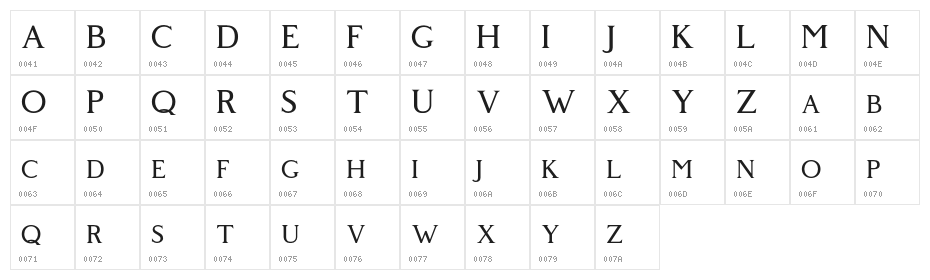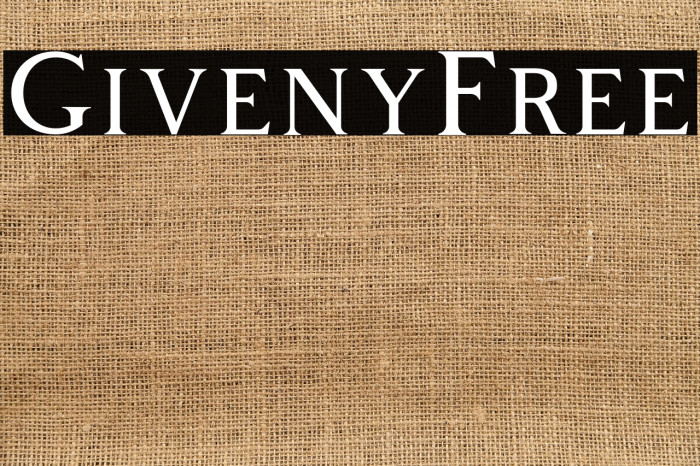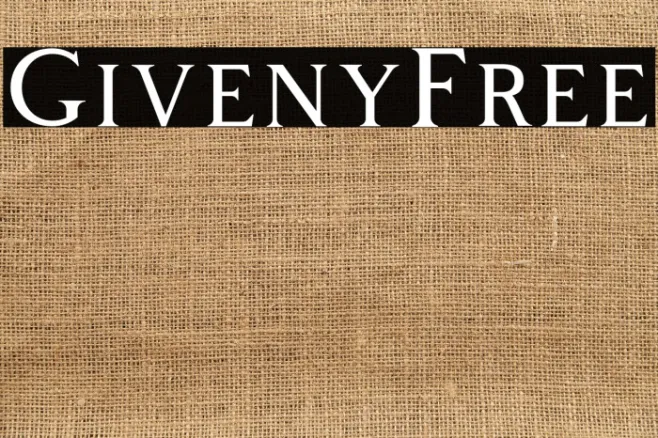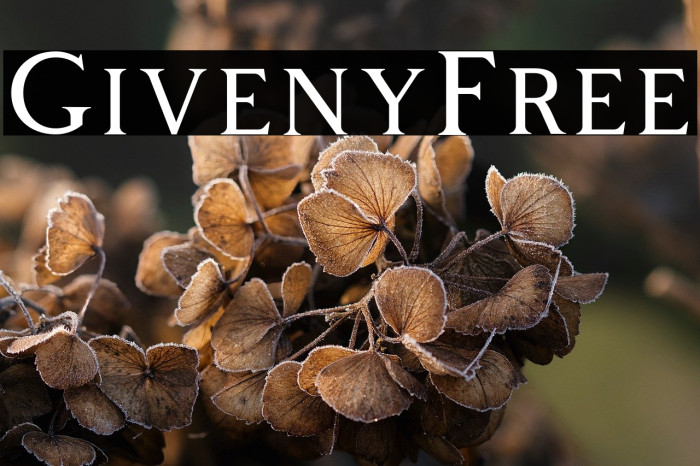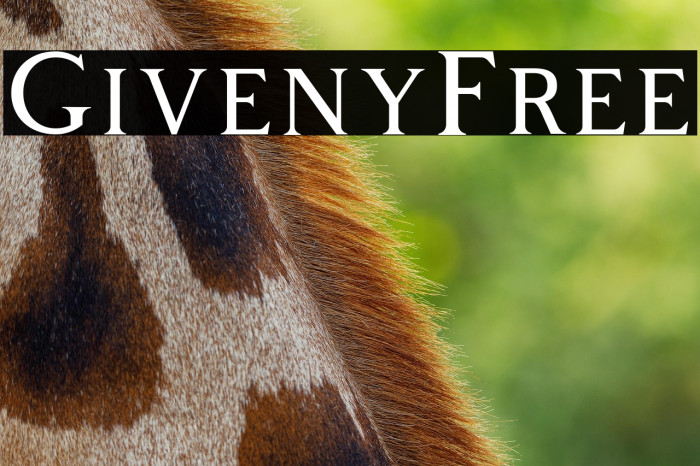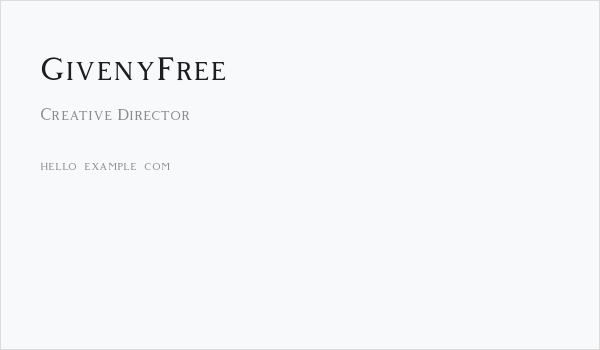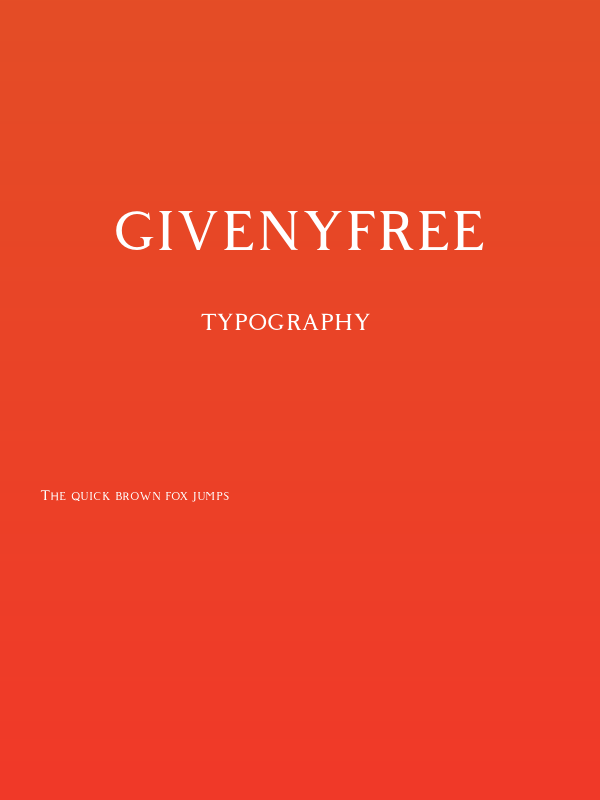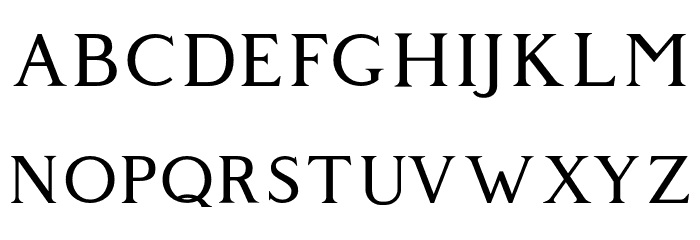
GivenyFree Font
GivenyFree Description
This font features a classic serif style with elegant and refined strokes. The characters exhibit a timeless design, characterized by their distinct serifs and balanced proportions. The uppercase letters are bold and commanding, while the lowercase letters maintain a harmonious flow. The numerals are clear and legible, complementing the overall aesthetic. This font is versatile, suitable for both formal and creative applications, offering a sophisticated touch to any project.
| Proposed Projects | Ideal for book covers, editorial design, branding, and formal invitations. |